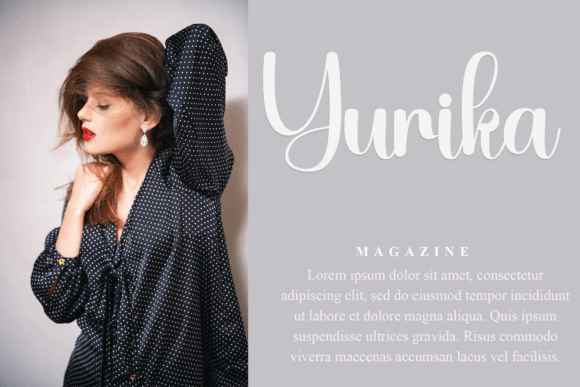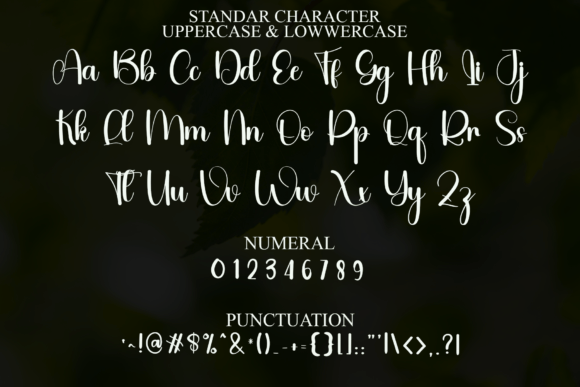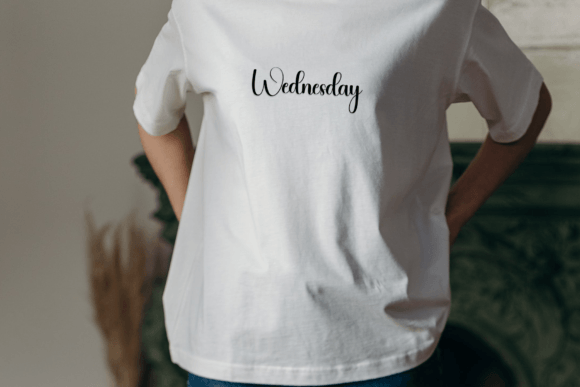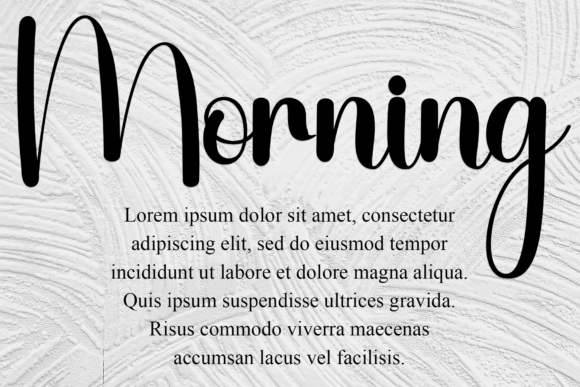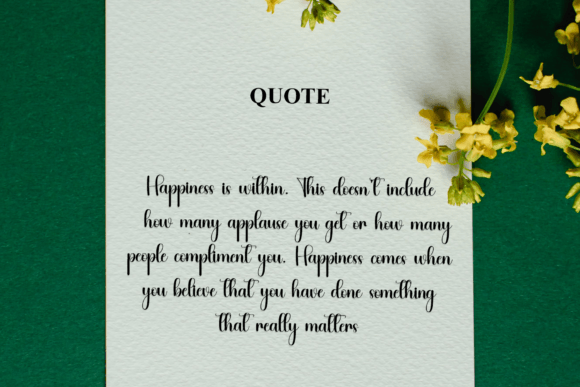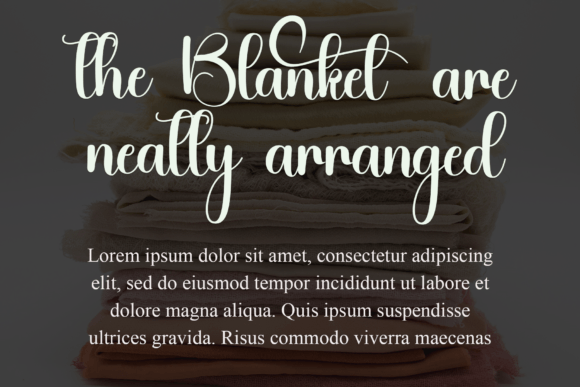
Introducing Blanket Font: The Cozy Handwritten Font for Personal and Heartfelt Designs
Are you looking for a font that can add a personal touch to your designs, evoke warmth, and create a sense of coziness? Look no further than Blanket Font, a charming handwritten font that is perfect for invitations, greeting cards, and branding projects that require a friendly and approachable feel.
The Charm of Blanket Font
Blanket Font is a beautiful, handwritten font that is reminiscent of a handwritten note on a sunny morning. Its gentle curves and friendly demeanor make it an ideal choice for designers and crafters who want to add a personal touch to their work. The font’s charming and heartfelt nature makes it perfect for creating designs that are warm, inviting, and engaging.
Perfect for Invitations and Greeting Cards
Blanket Font is particularly well-suited for invitations and greeting cards, where a personal touch can make all the difference. Whether you’re designing a wedding invitation, a birthday card, or a holiday greeting, this font will help you create a warm and welcoming atmosphere that makes the recipient feel special. The font’s handwritten nature gives your designs a unique and personal feel that is sure to be appreciated.
Cozy Branding Projects
Blanket Font is also perfect for branding projects that require a cozy and approachable feel. Whether you’re designing a logo, packaging, or marketing materials for a small business or a crafty brand, this font will help you create a warm and inviting atmosphere that resonates with your target audience. The font’s friendly nature makes it an excellent choice for brands that want to establish a personal connection with their customers.
Key Features of Blanket Font
- Handwritten nature: Blanket Font has a beautiful, handwritten feel that gives your designs a unique and personal touch.
- Gentle curves: The font’s gentle curves and rounded edges create a warm and inviting atmosphere.
- Friendly demeanor: Blanket Font has a friendly and approachable nature that makes it perfect for designs that require a personal touch.
- Highly versatile: The font is suitable for a wide range of design projects, from invitations and greeting cards to branding and marketing materials.
Tips for Using Blanket Font
To get the most out of Blanket Font, here are a few tips to keep in mind:
- Use it for headlines and body copy: Blanket Font is suitable for both headlines and body copy, making it a versatile choice for a wide range of design projects.
- Experiment with colors and textures: The font’s warm and inviting nature makes it perfect for designs that incorporate warm colors and textures.
- Pair it with other fonts: Blanket Font can be paired with other fonts to create a unique and visually appealing design.
Blanket Font is a charming handwritten font that is perfect for designers and crafters who want to add a personal touch to their designs. Its gentle curves, friendly demeanor, and highly versatile nature make it an excellent choice for a wide range of design projects, from invitations and greeting cards to branding and marketing materials. With Blanket Font, you can create designs that are warm, inviting, and engaging, and that resonate with your target audience.